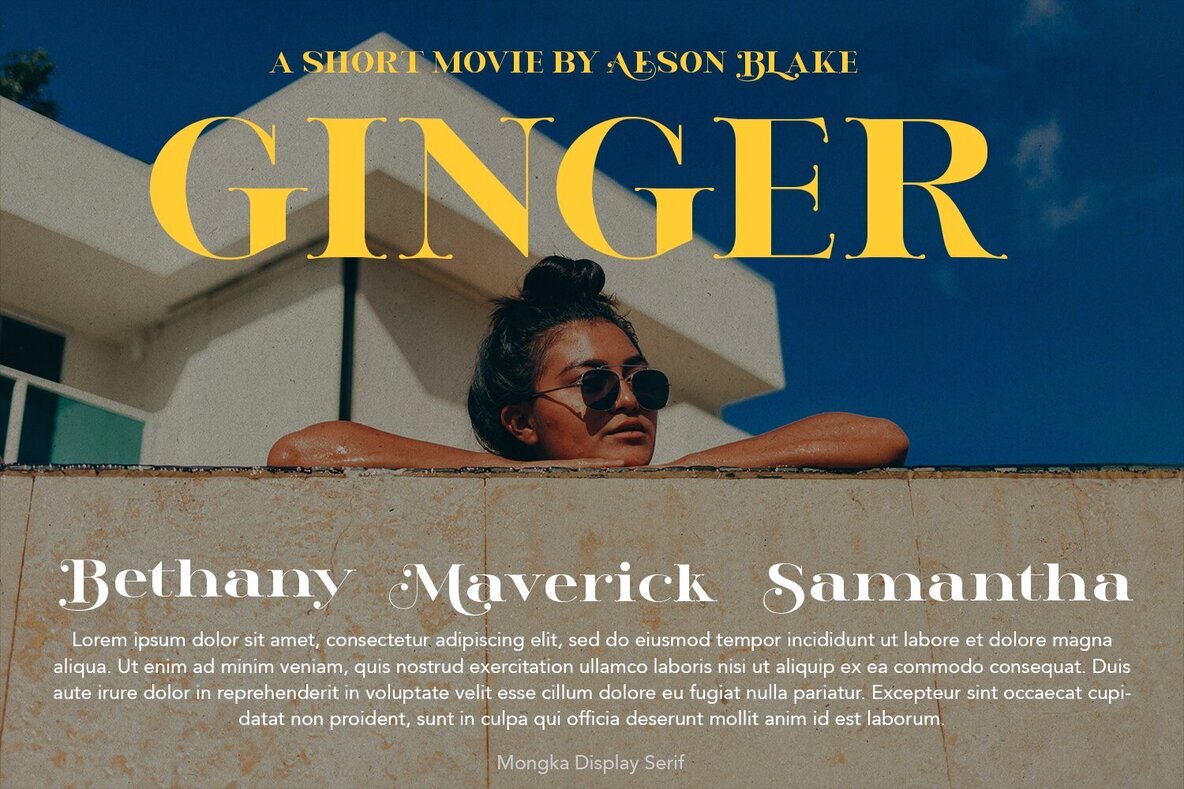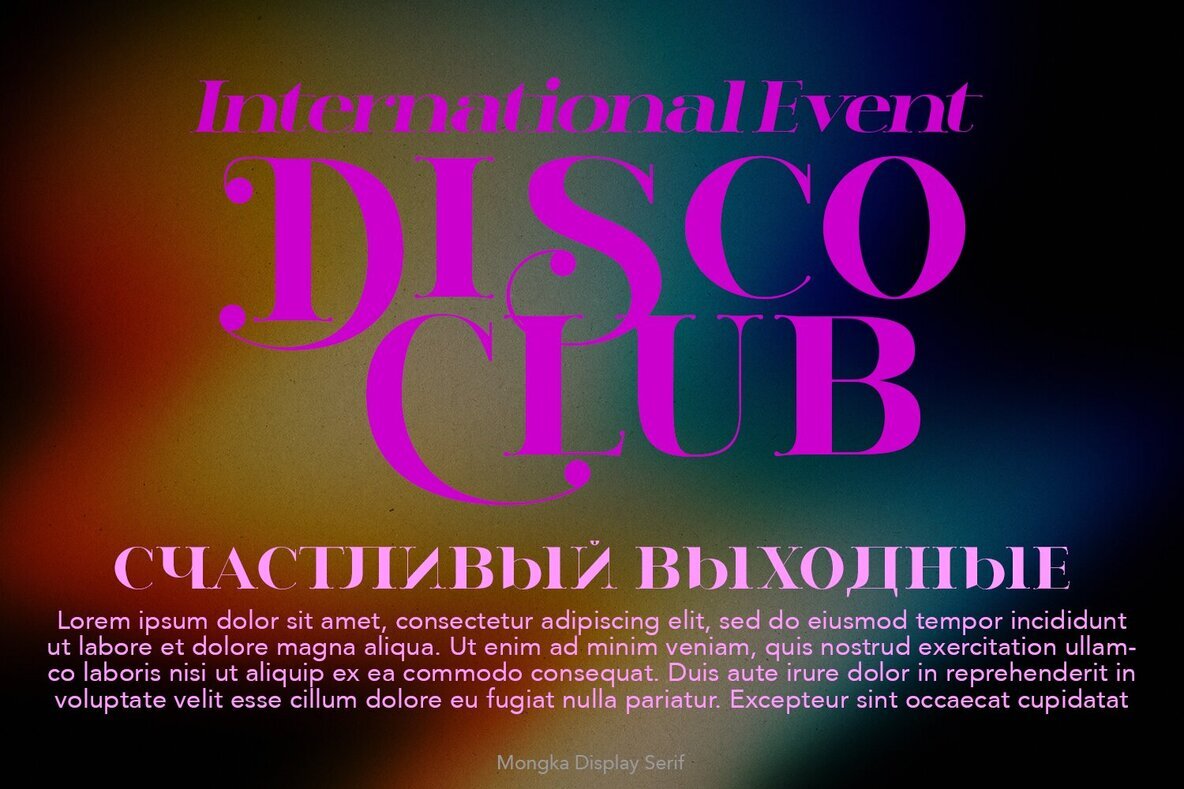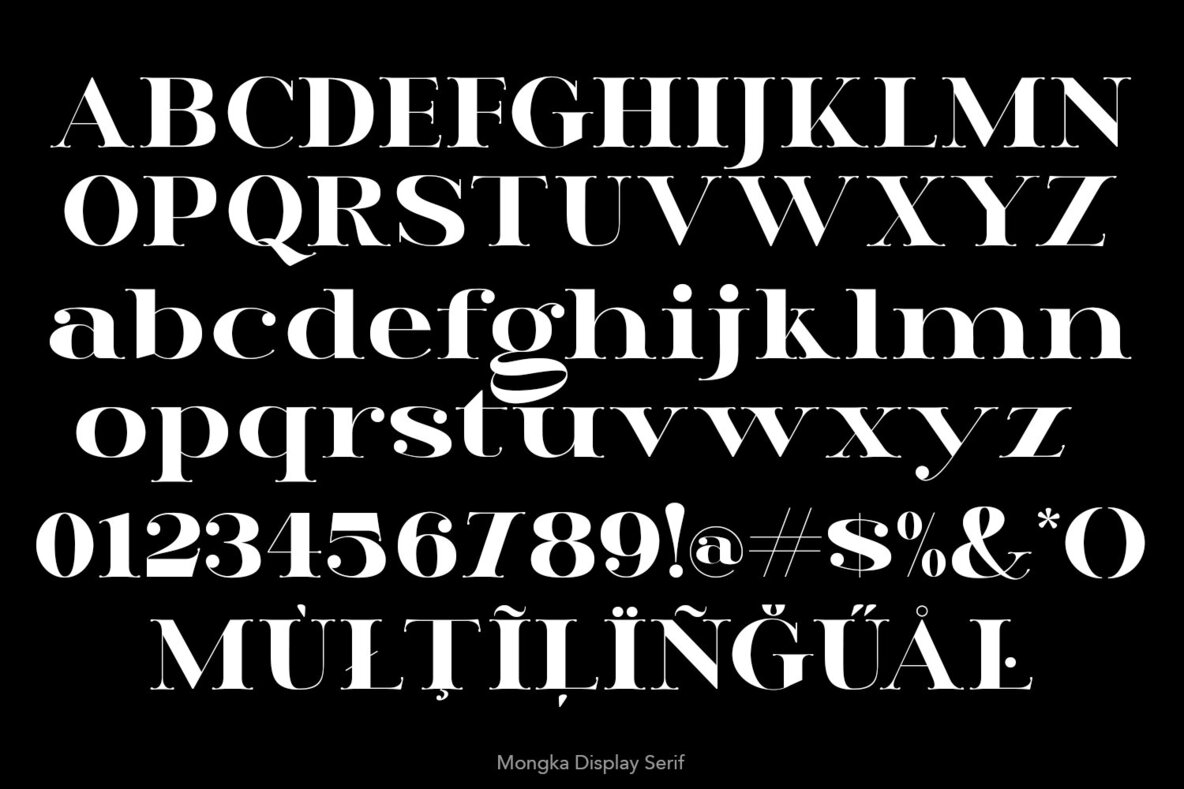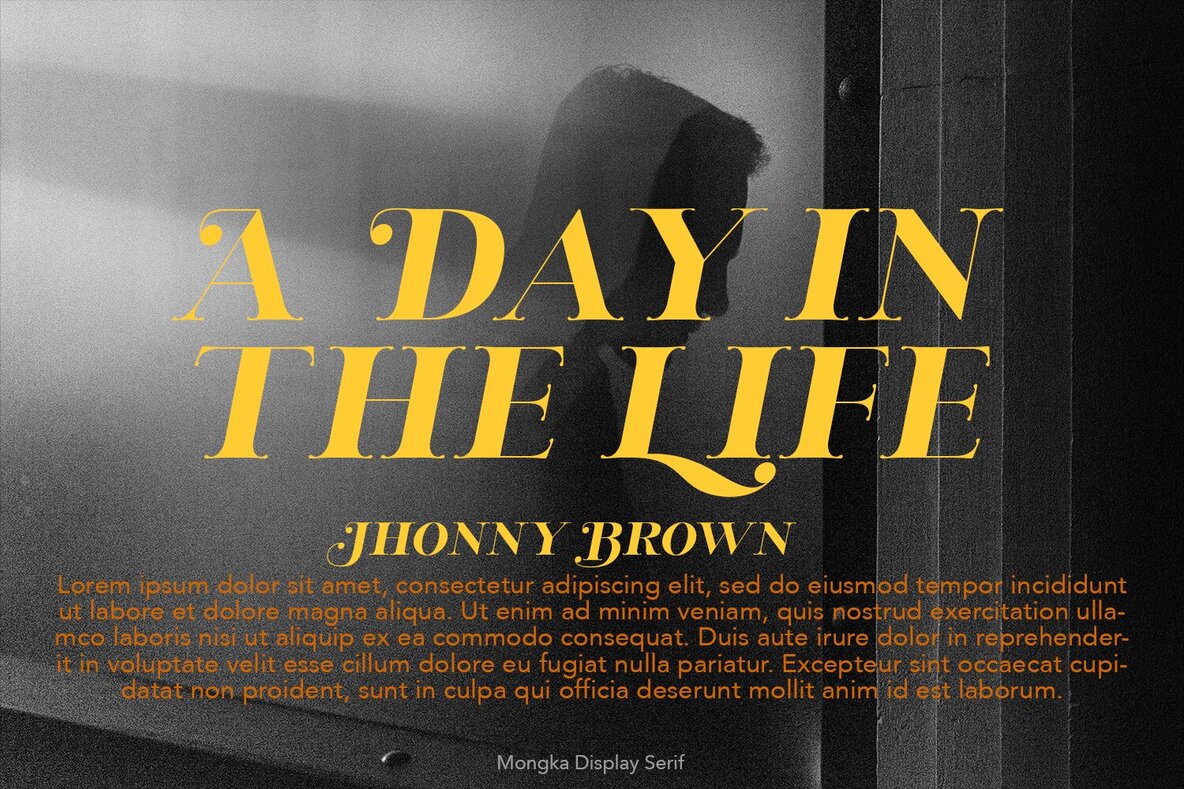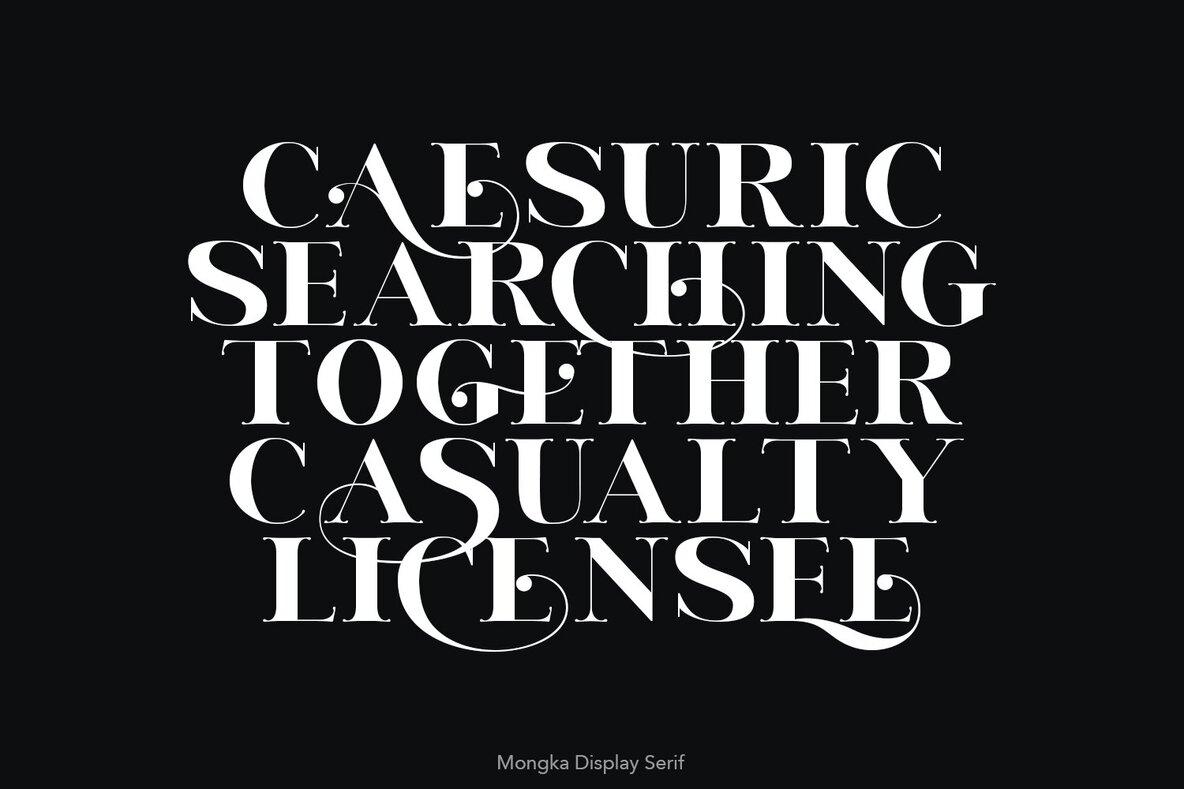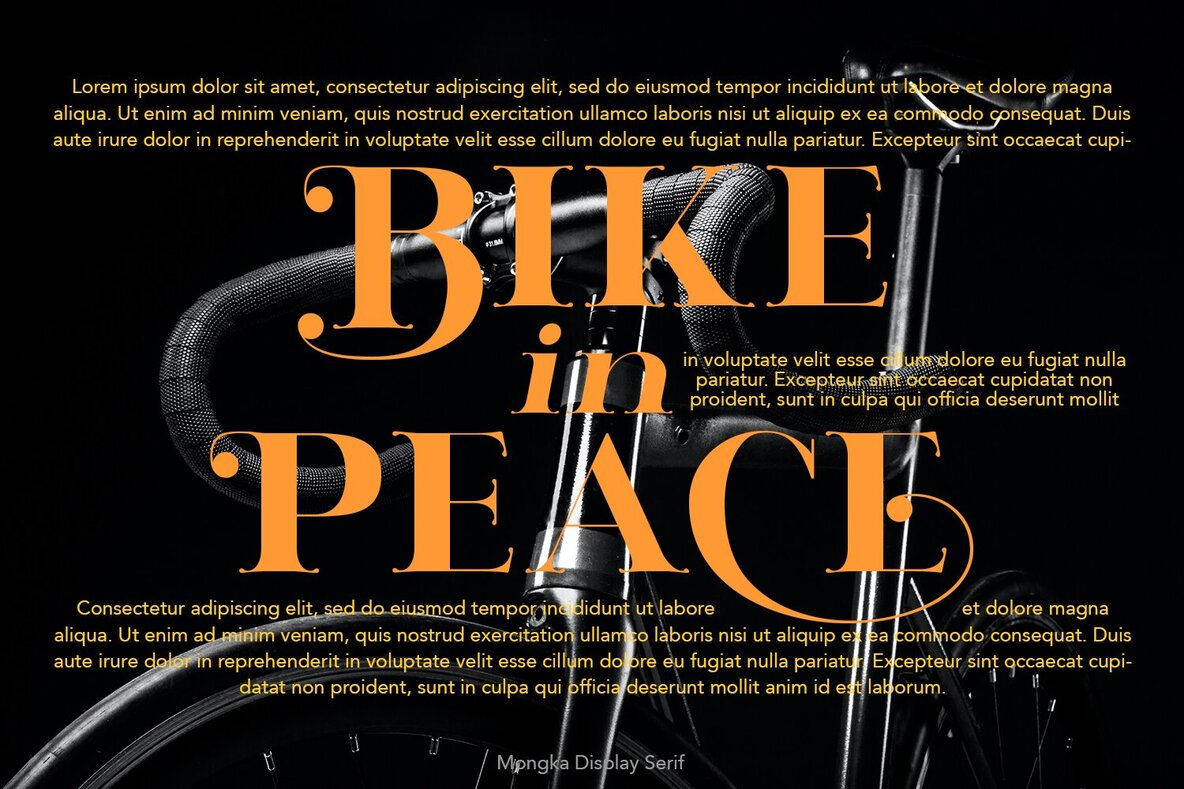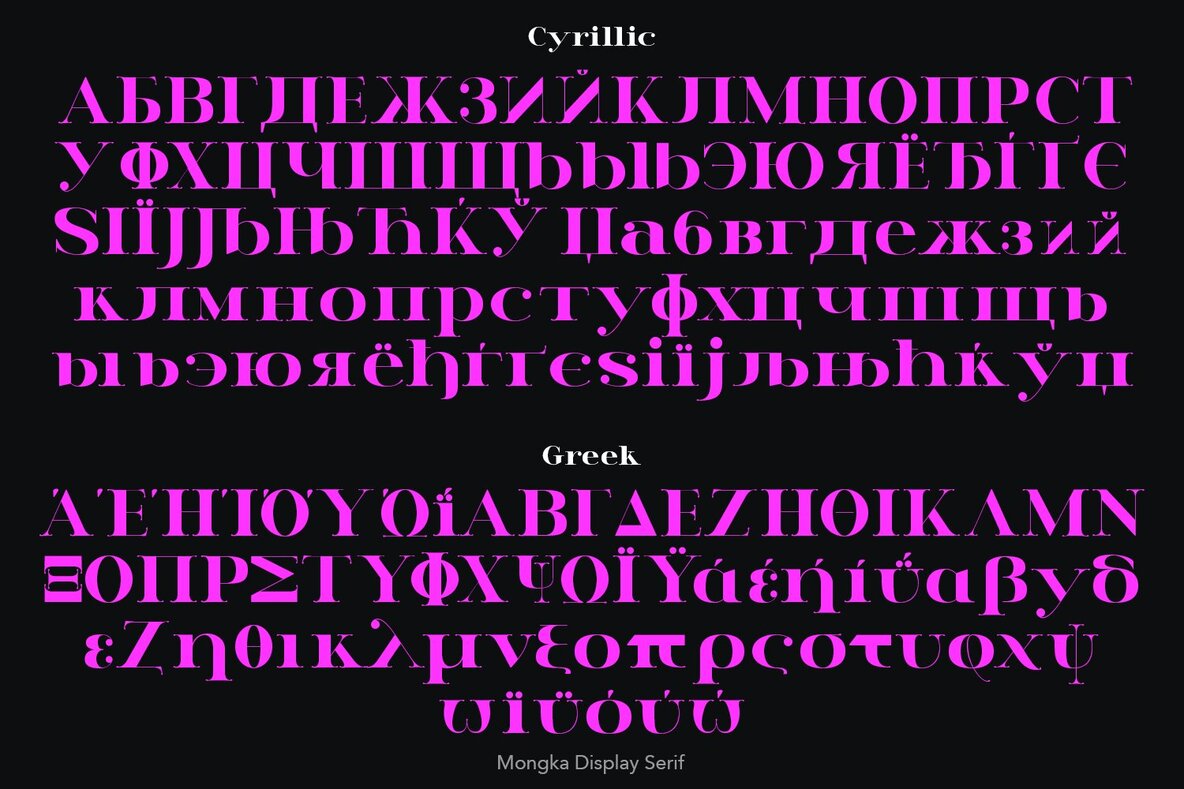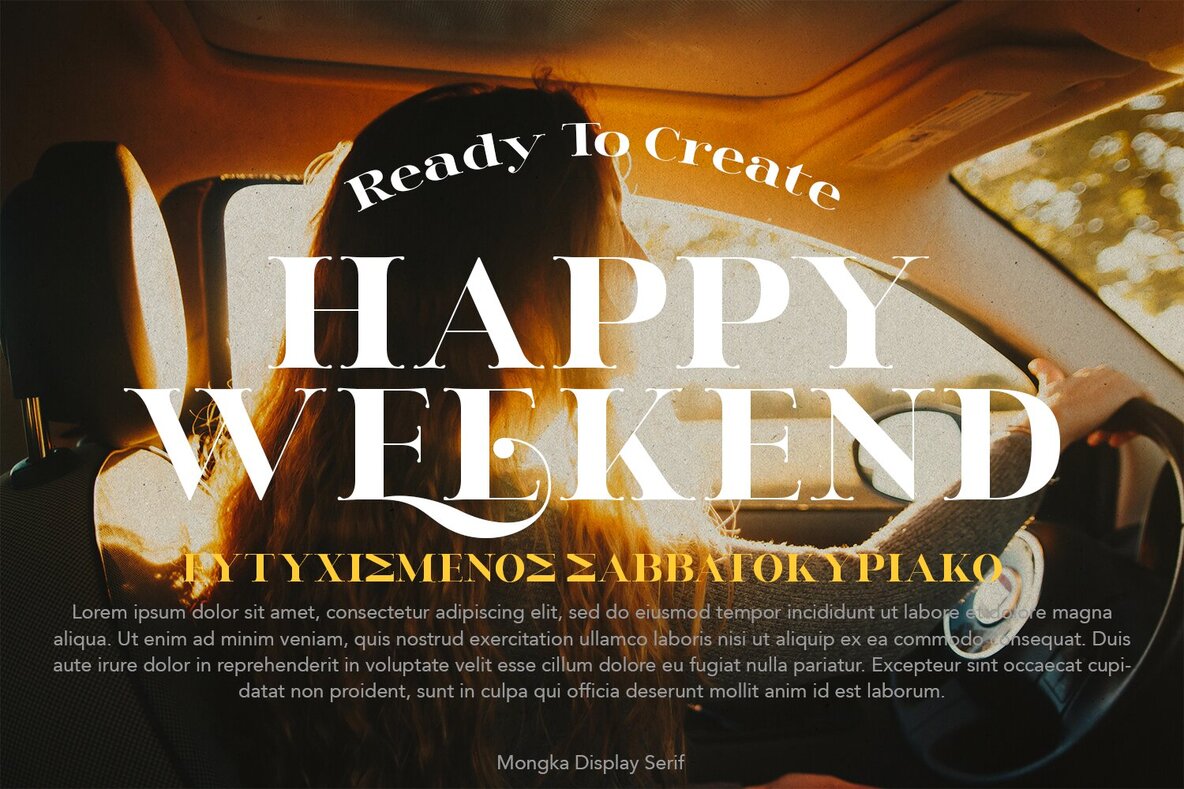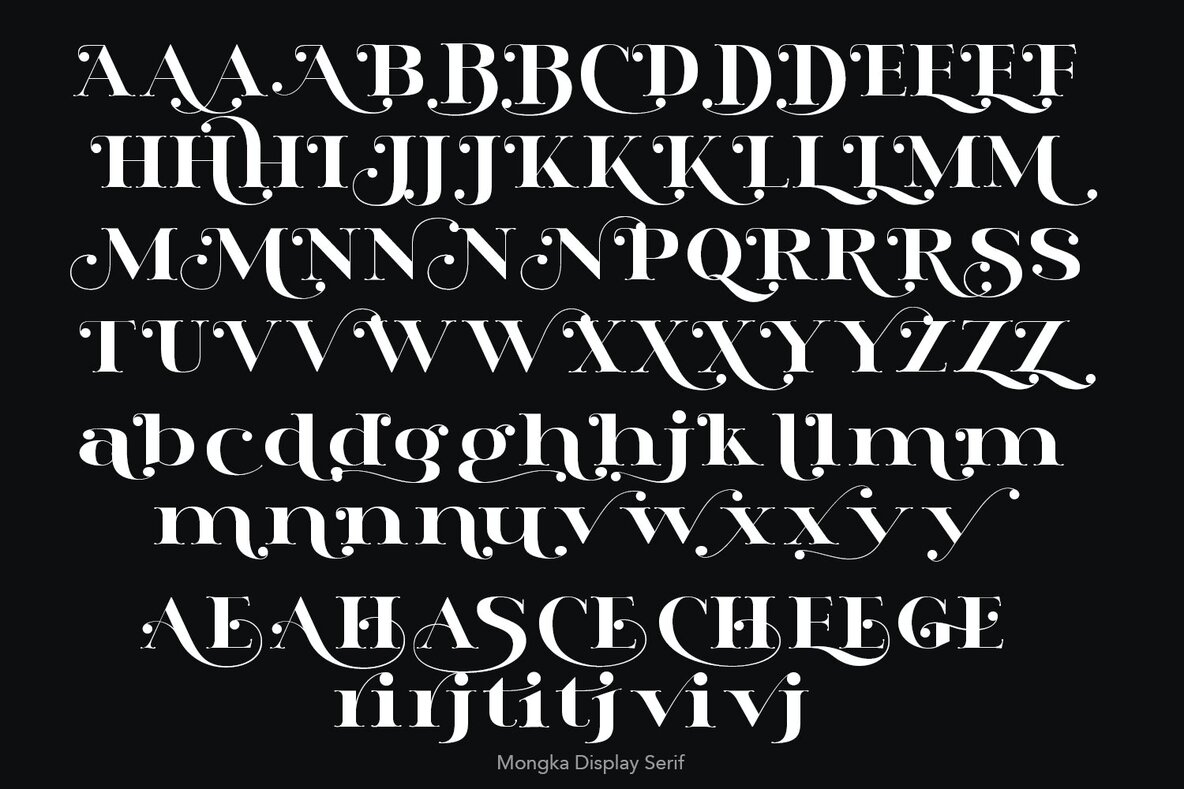
Mongka Font
Mongka Regular
Mongka is masterfully designed to be stylish and elegant, offering versatility in various creative projects. This typeface features international glyphs, including Cyrillic and Greek, making it suitable for global audiences. Its ligatures and special alternative glyphs allow for creative layouts and compositions. Mongka brings a touch of luxury and bespoke custom typography to logos, websites, social media quotes, wedding branding, and beyond.Mongka: Elegant Typeface with Global Glyphs